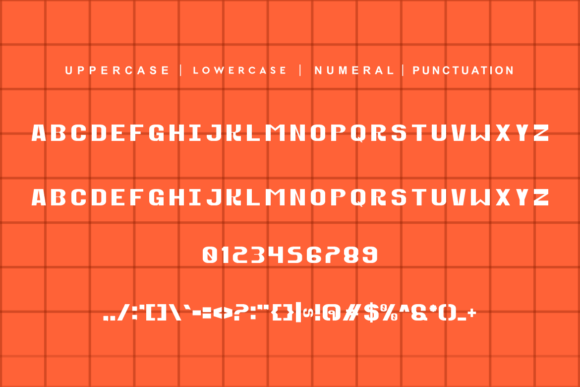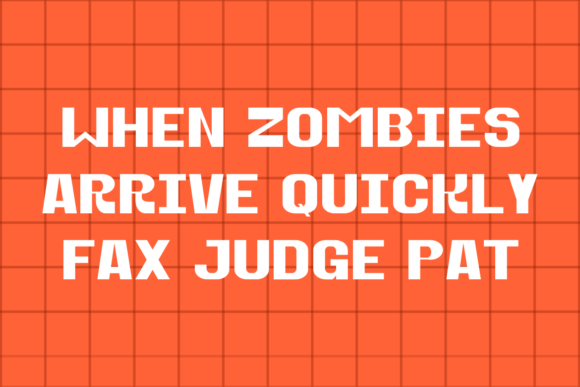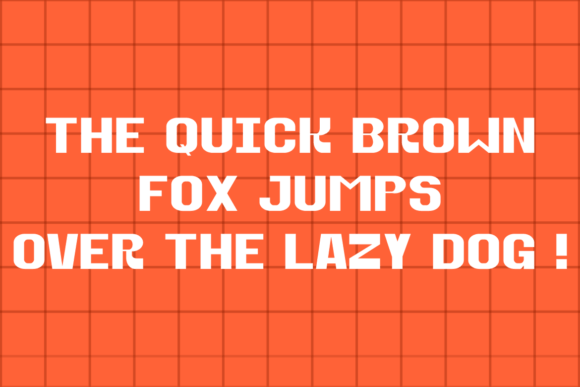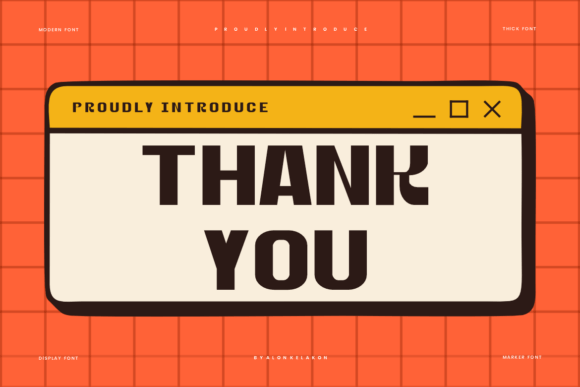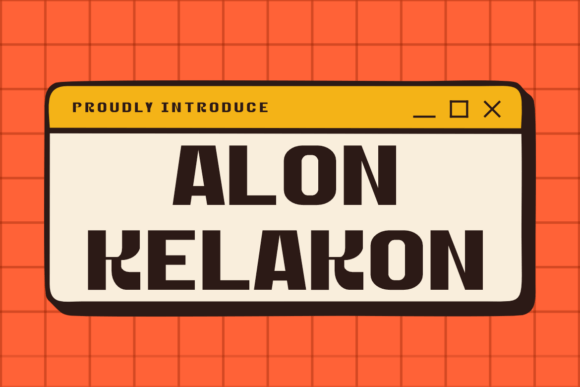
The Quest for the Perfect Font: How Alon Kelakon Stole My Heart
I’ll never forget the frustration of working on a design project, hours spent searching for that one font that would bring it all together. My client wanted something sweet, friendly, and unique – a font that would make their brand stand out. As I scrolled through font after font, I couldn’t help but feel like I was stuck in a never-ending loop of sameness. That was until I stumbled upon Alon Kelakon, a sans serif font that has since become my go-to for a wide range of designs.
So, what makes Alon Kelakon so special? Here are a few things that I absolutely love:
- ✨ Unique yet approachable: Alon Kelakon’s natural style makes it incredibly fitting for a wide range of designs, from playful crafts to more sophisticated branding projects.
- ✅ Highly legible: Even at smaller sizes, Alon Kelakon remains clear and easy to read, making it perfect for body text or captions.
- 💫 Versatile: Whether you’re working on a digital project or a print design, Alon Kelakon adapts seamlessly to different mediums and contexts.
Of course, no font is perfect, and Alon Kelakon does have a few quirks:
- 🤔 Limited language support: While Alon Kelakon covers a range of languages, it’s not exhaustive. If you need to support a specific language, double-check the font’s capabilities before committing.
- ⚠️ Occasional kerning issues: As with any font, you may encounter some kerning issues, particularly with certain letter combinations. However, these are relatively rare and can usually be easily adjusted.
The Story Behind Alon Kelakon
While the true story behind Alon Kelakon’s creation may be shrouded in mystery, it’s easy to imagine a designer pouring their heart and soul into crafting such a unique and versatile font. Perhaps the designer, inspired by the natural world, sought to create a font that would bring a touch of warmth and personality to designs. Whatever the inspiration, Alon Kelakon’s sweet, friendly style has captured the hearts of designers and crafters around the world.
| What type of projects is Alon Kelakon best suited for? | Alon Kelakon is incredibly versatile and can be used for a wide range of projects, from playful crafts and DIY designs to more sophisticated branding and editorial projects. |
| Is Alon Kelakon suitable for body text? | Yes, Alon Kelakon is highly legible and can be used for body text, even at smaller sizes. |